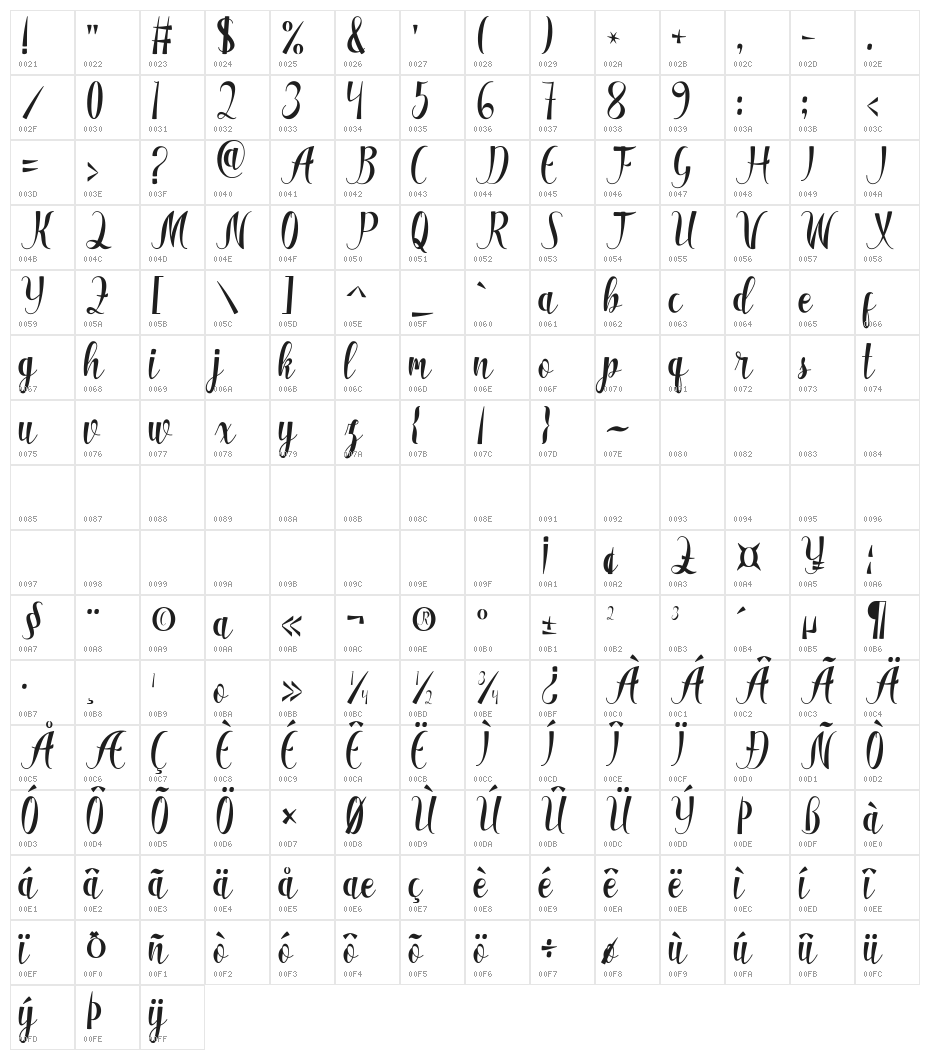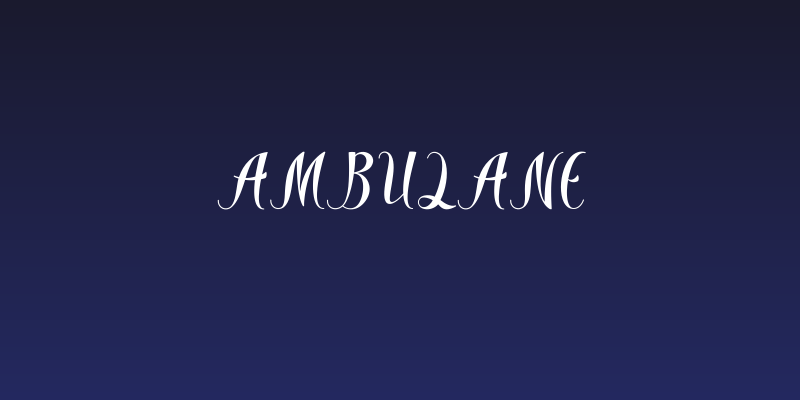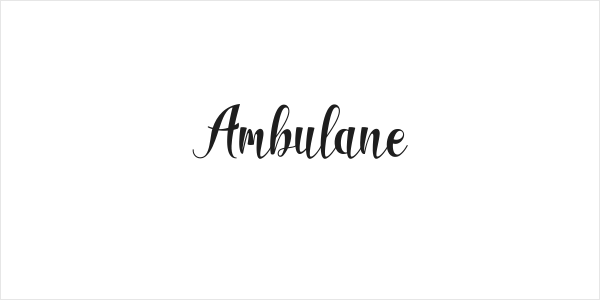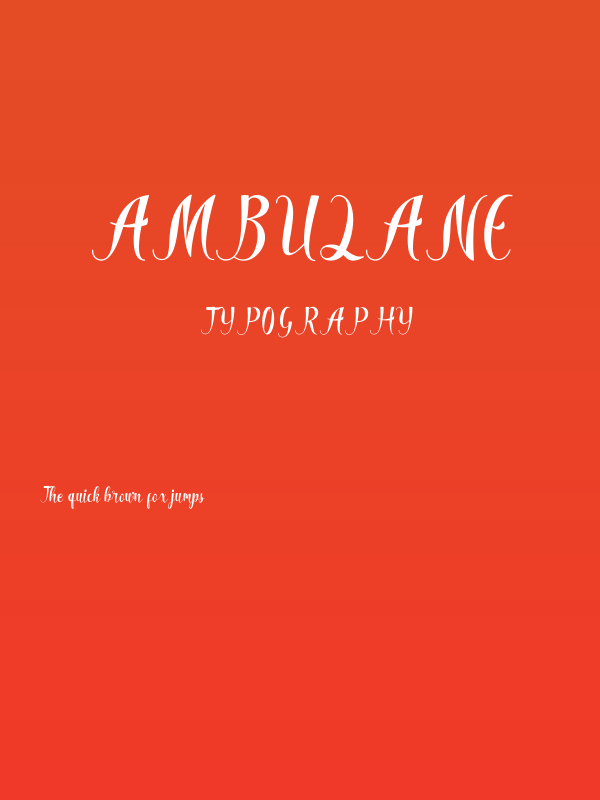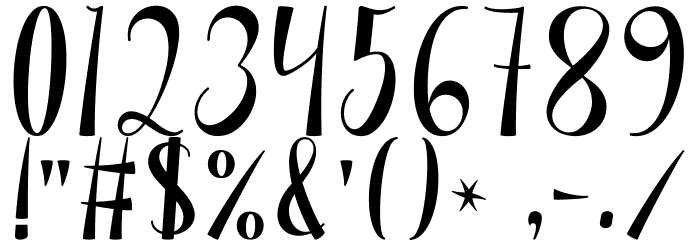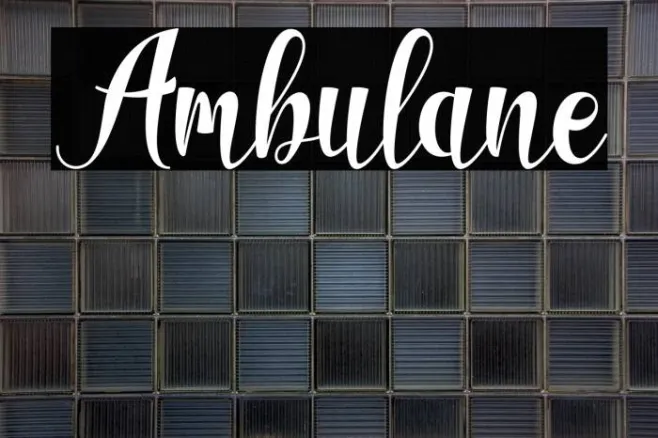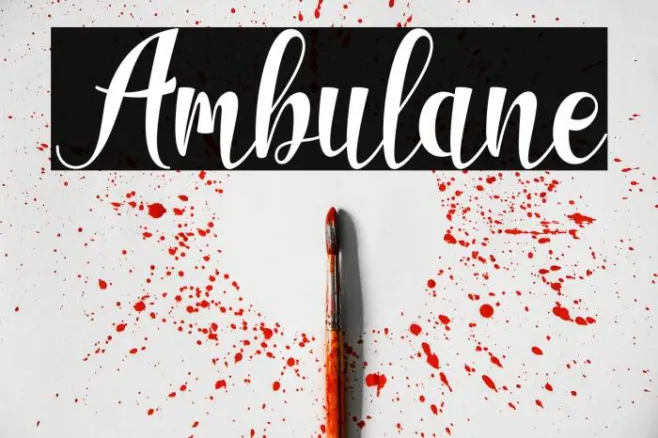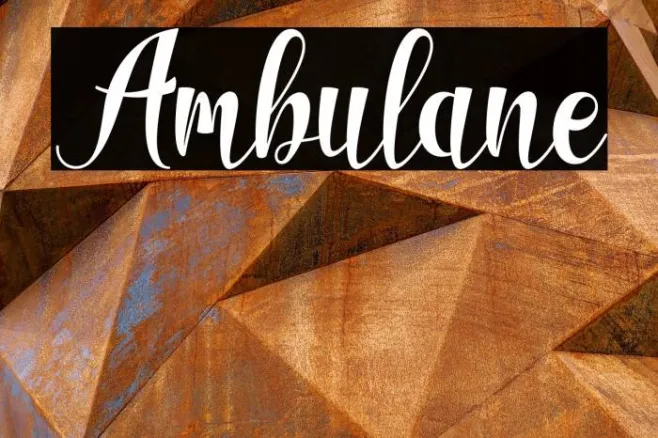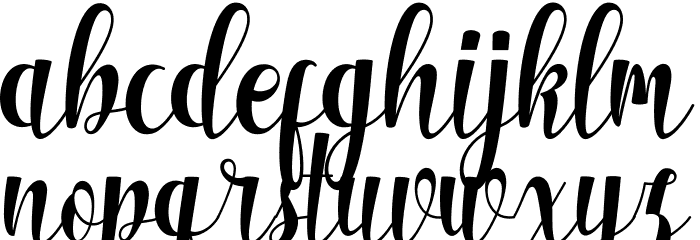
Ambulane Font
Ambulane Description
This font features a dynamic and elegant script style with a modern twist. The uppercase letters are tall and slender, with graceful curves and a slight slant, giving them a sophisticated appearance. The lowercase letters maintain a consistent flow, with some characters featuring unique loops and swashes that add to the font's charm. The numerals are designed with a similar flair, ensuring they complement the overall aesthetic. Special characters are thoughtfully crafted to match the font's style, making it versatile for various design needs.